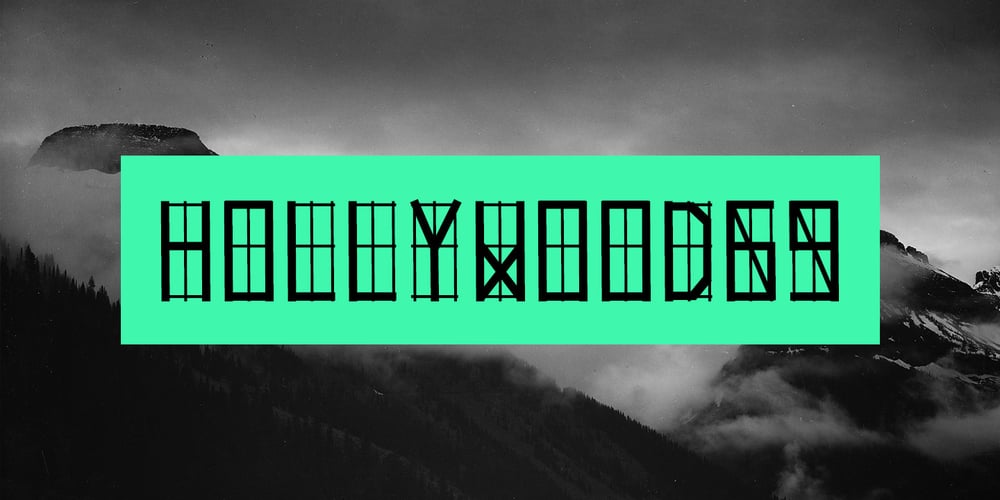
Hollywood 69 Font Family was designed by David Alexander Slaager and published by Fonts of Chaos. Hollywood 69 contains 1 styles and family package options. This is not Hollywood. You may be surprised but I am not inspired by the famous Hollywood sign for this type but a grid on a roof of Barcelona. I walked down the street observing the architecture of buildings in the area of the Marina when I saw a grid on a roof. One of the workers put a board on them and the magic happen. Hollywood 69 is now free with 99 !